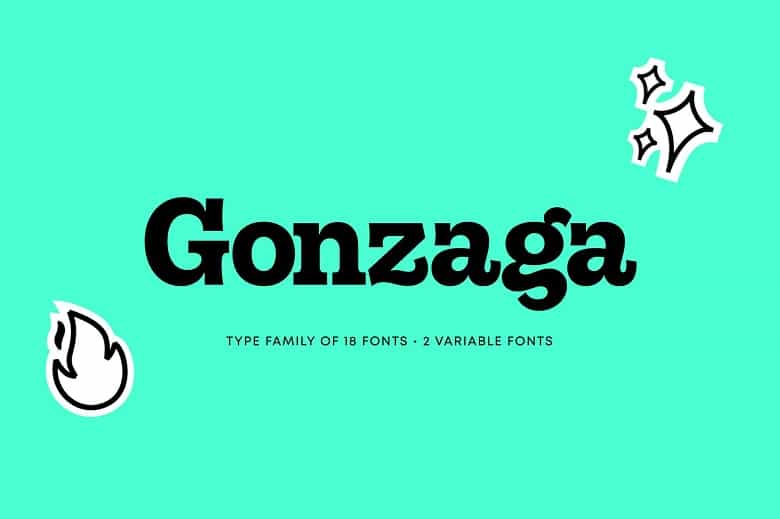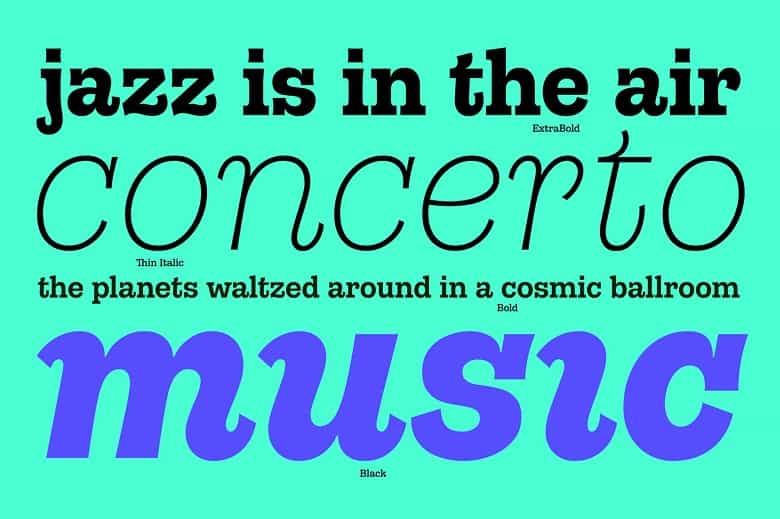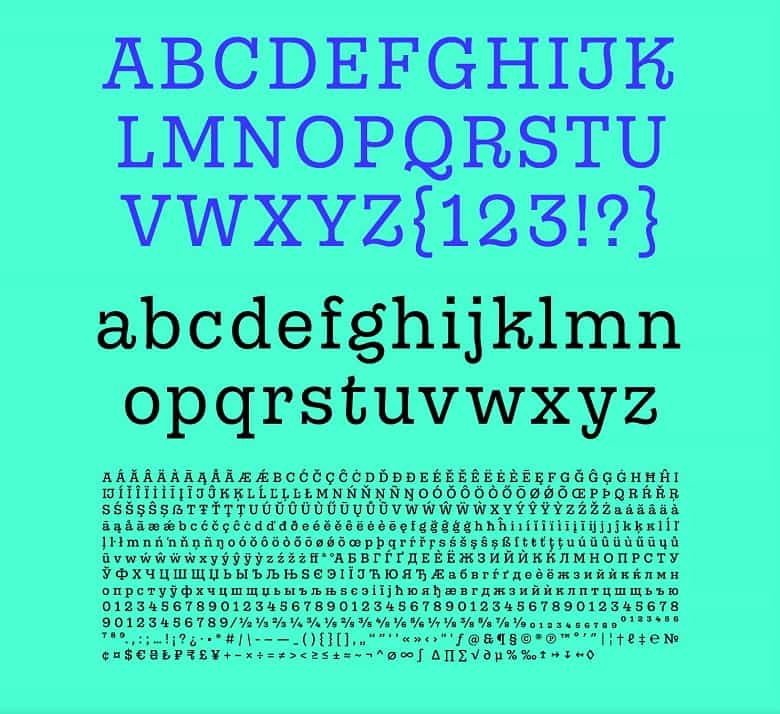
Gonzaga is a stylish slab-serif font family, that will charm you with its uniqueness, combining the spirit of classic with the spirit of elegance. This man is not a rebel but he is not a conformist either. An 18 members modern family with steady skeleton with strong voice that can sing any song with much ease. This type family consists of 18 styles of Thin to Black with an upright and italic option as well. Large set of ligatures, regular, contextual and discretionary, was used in this design. Cyrillic with all local languages characters and forms.